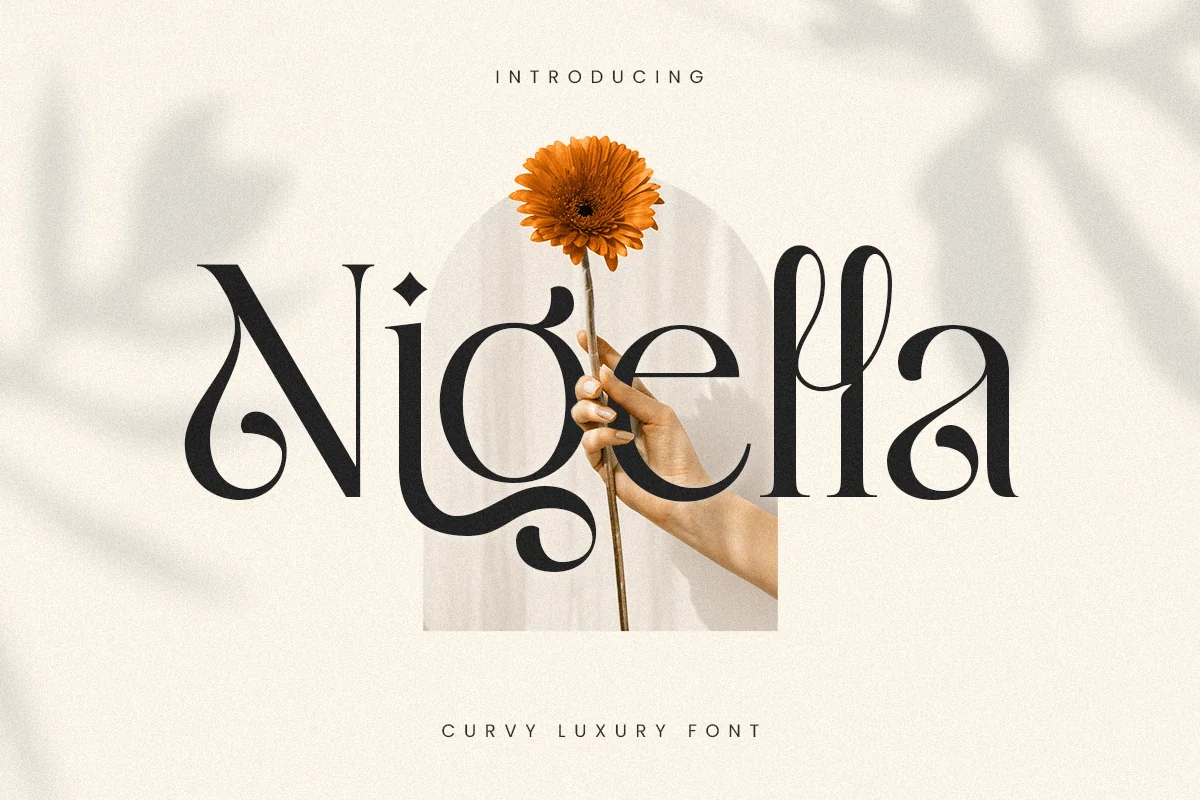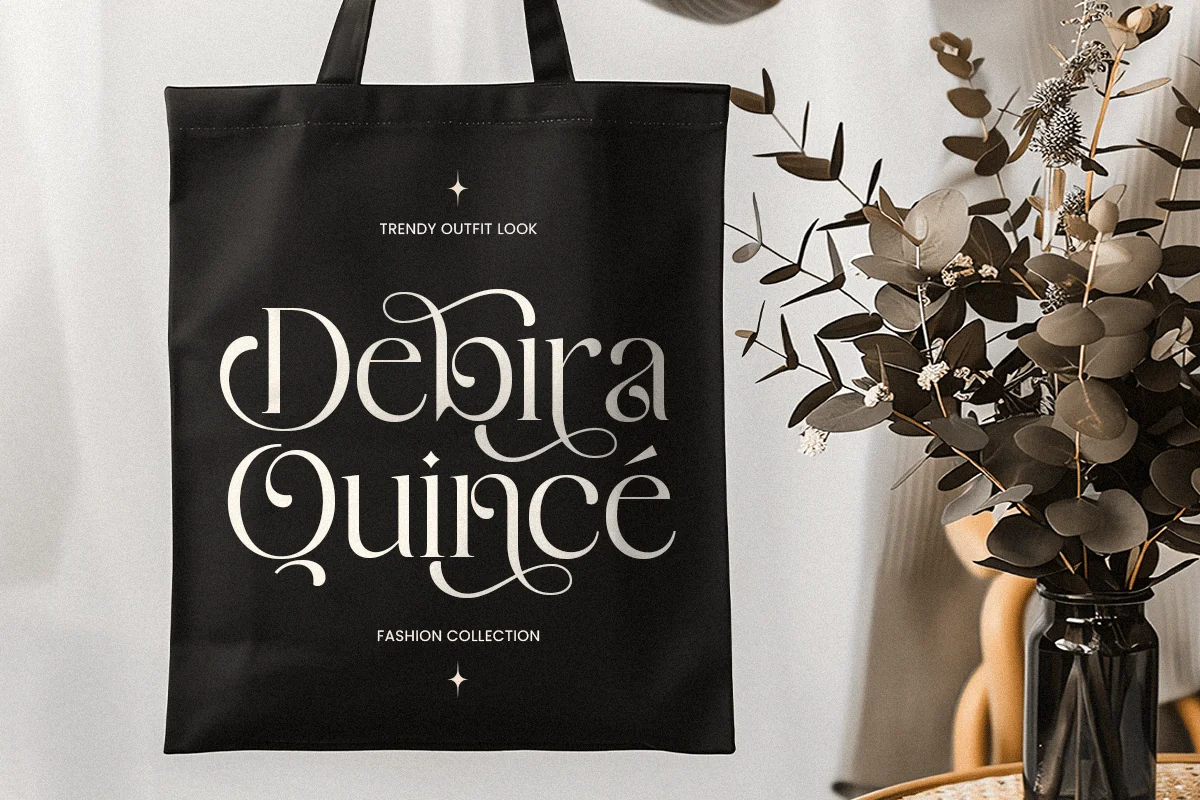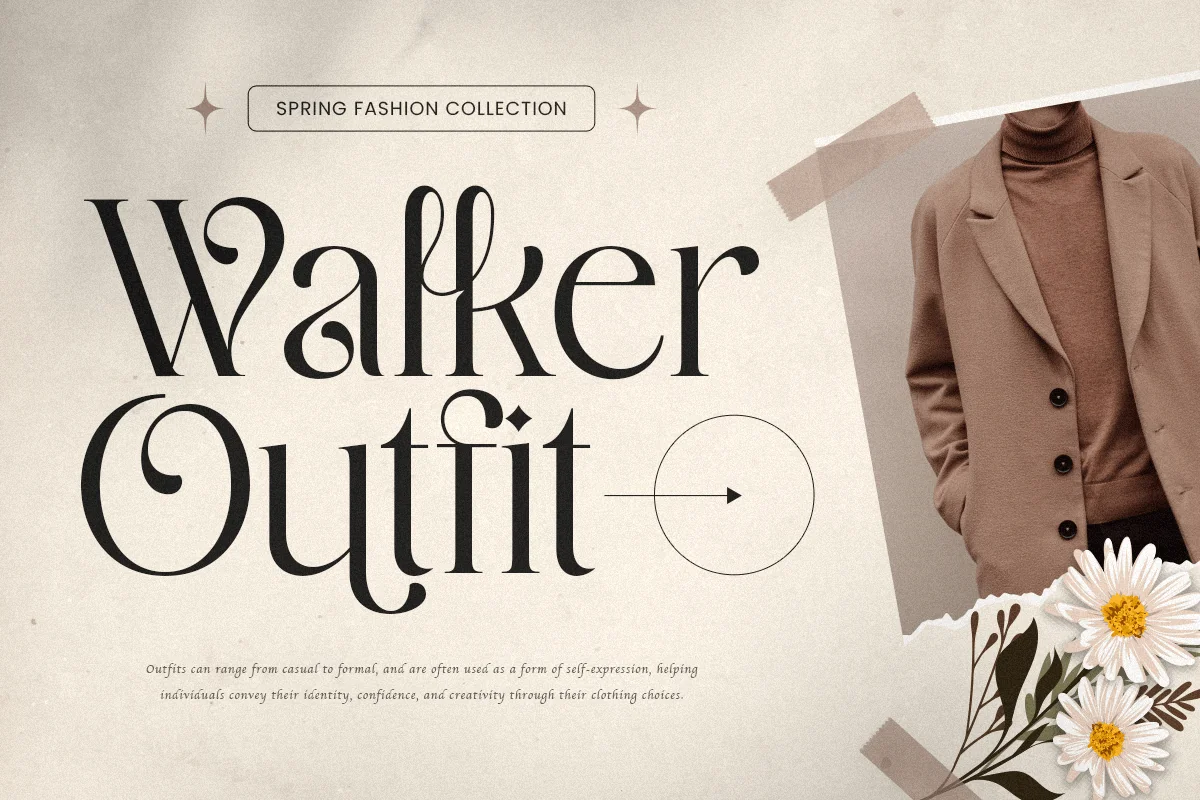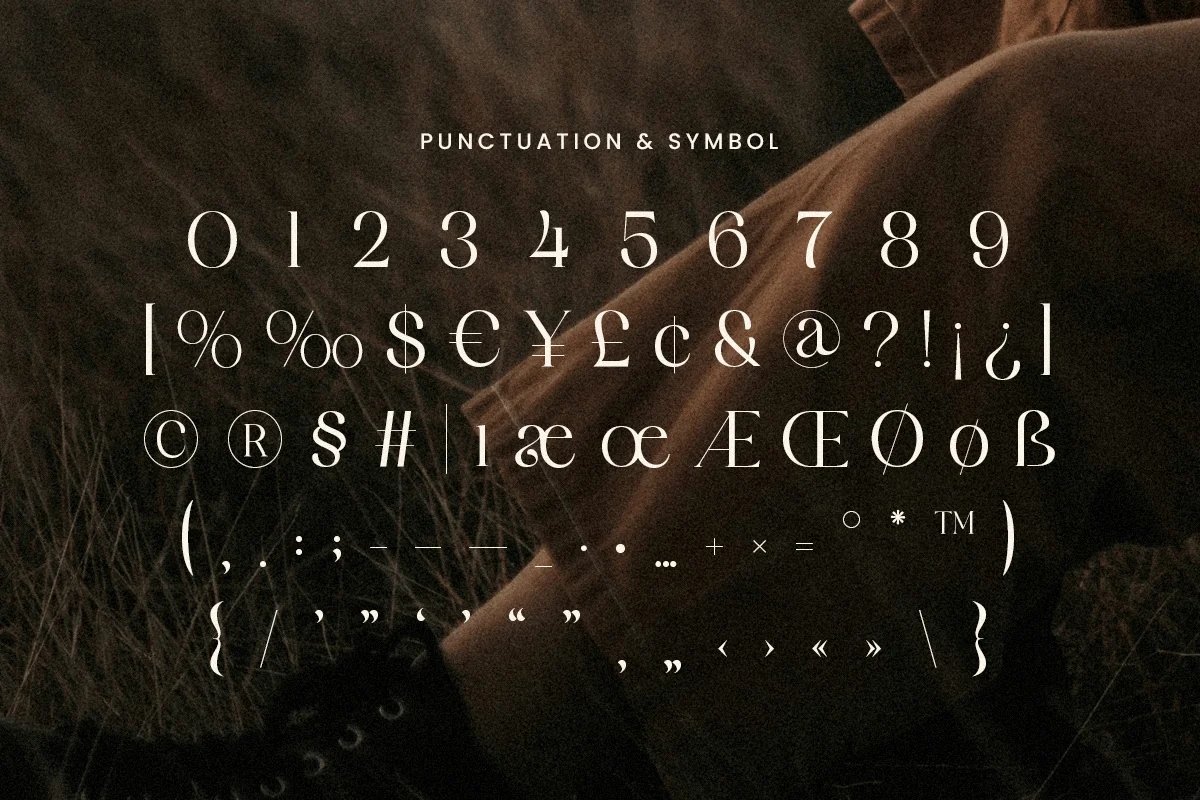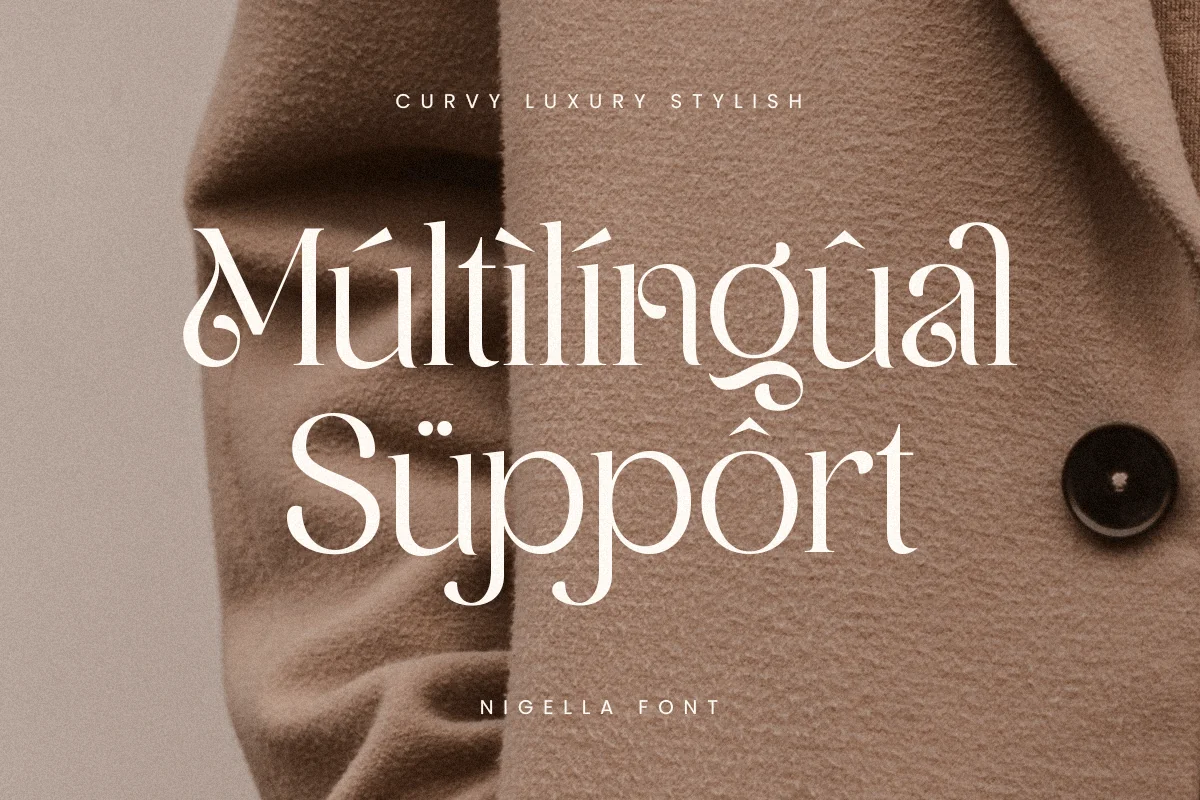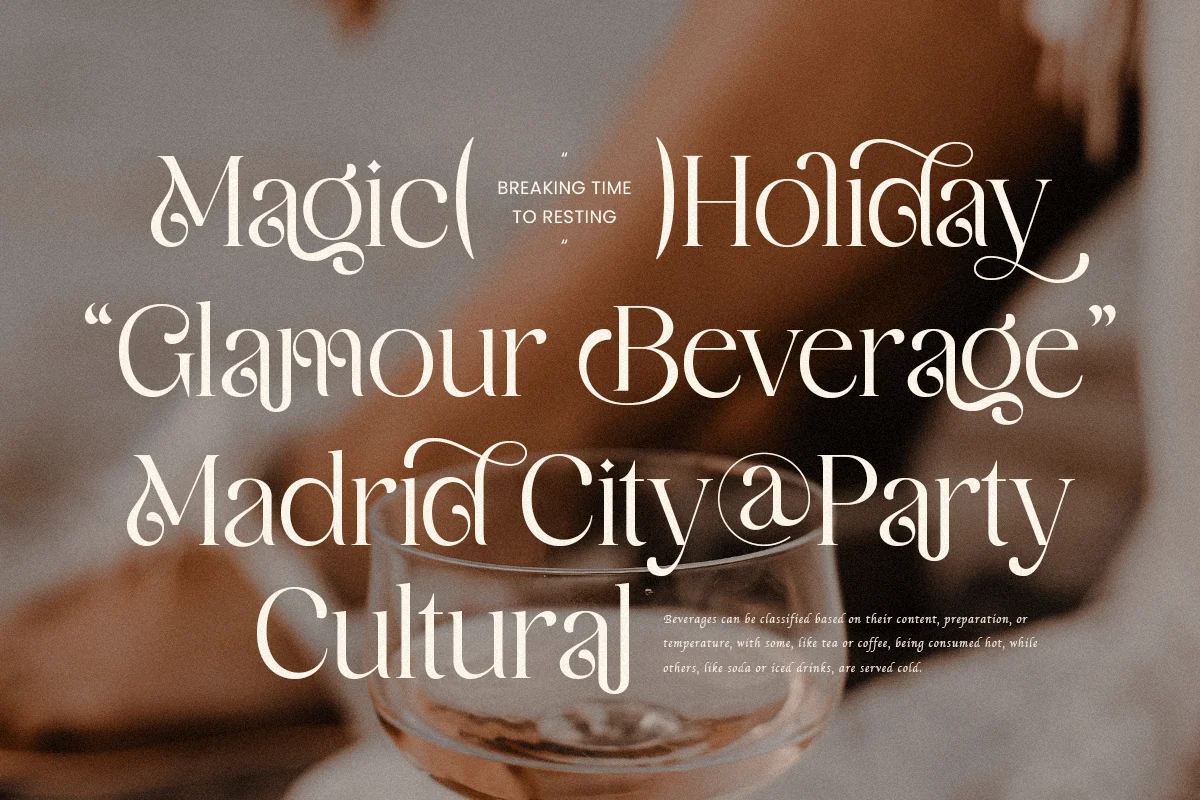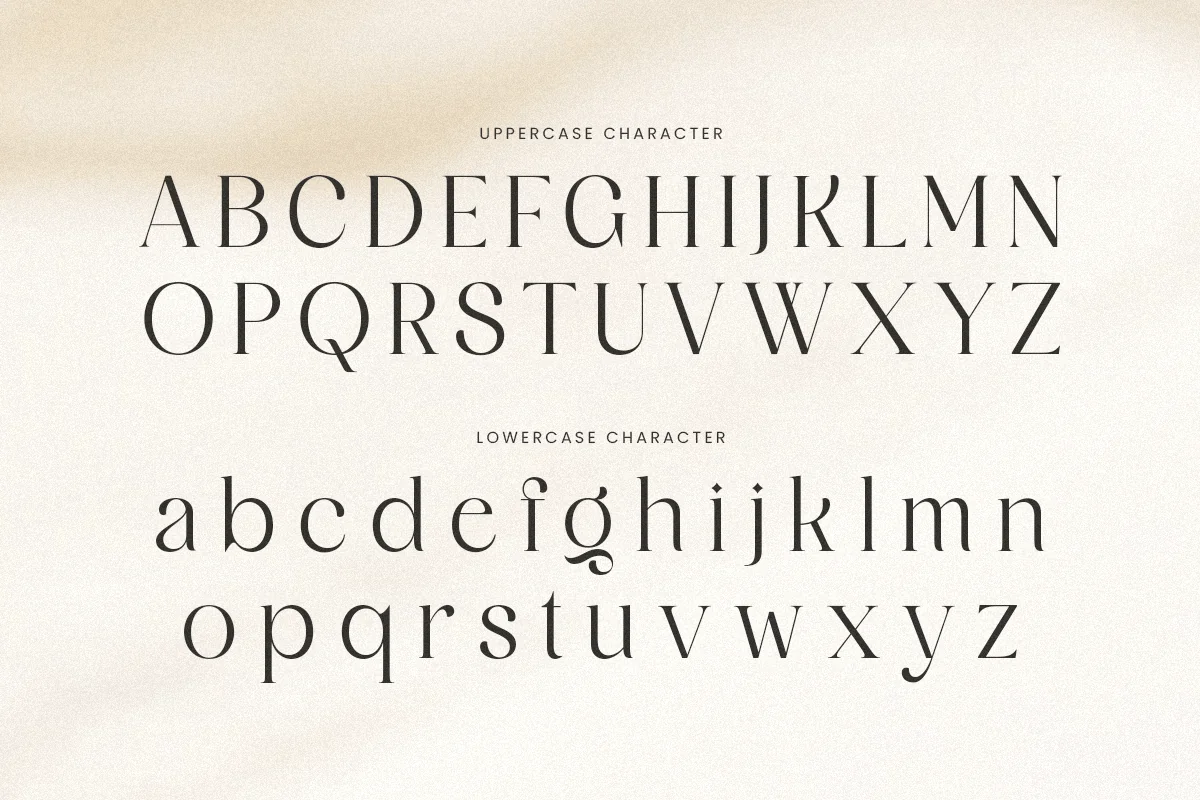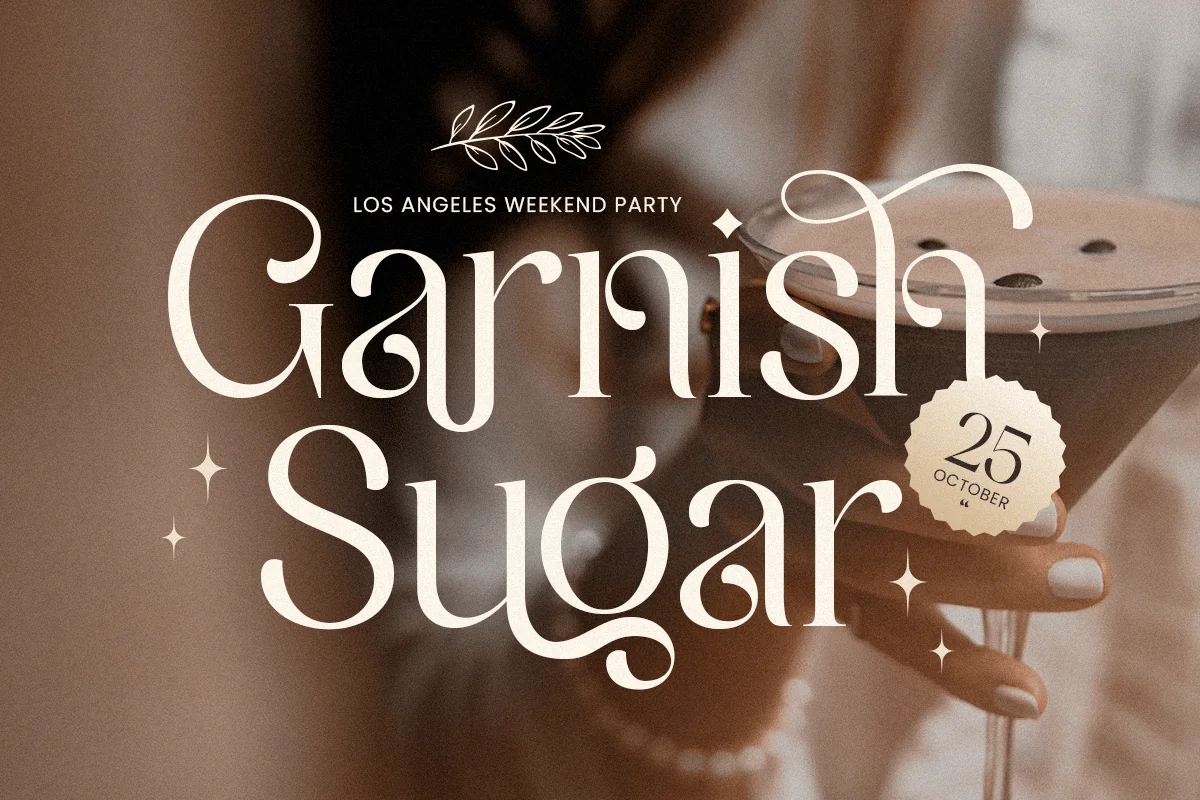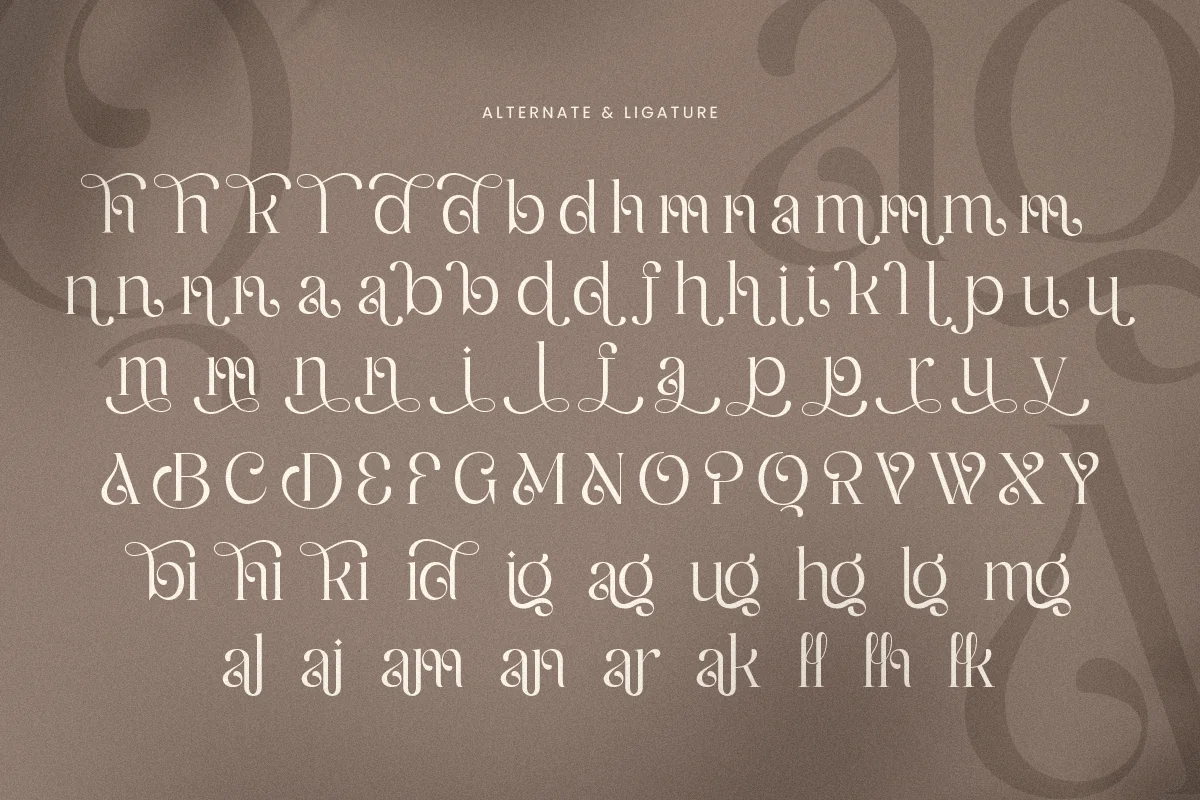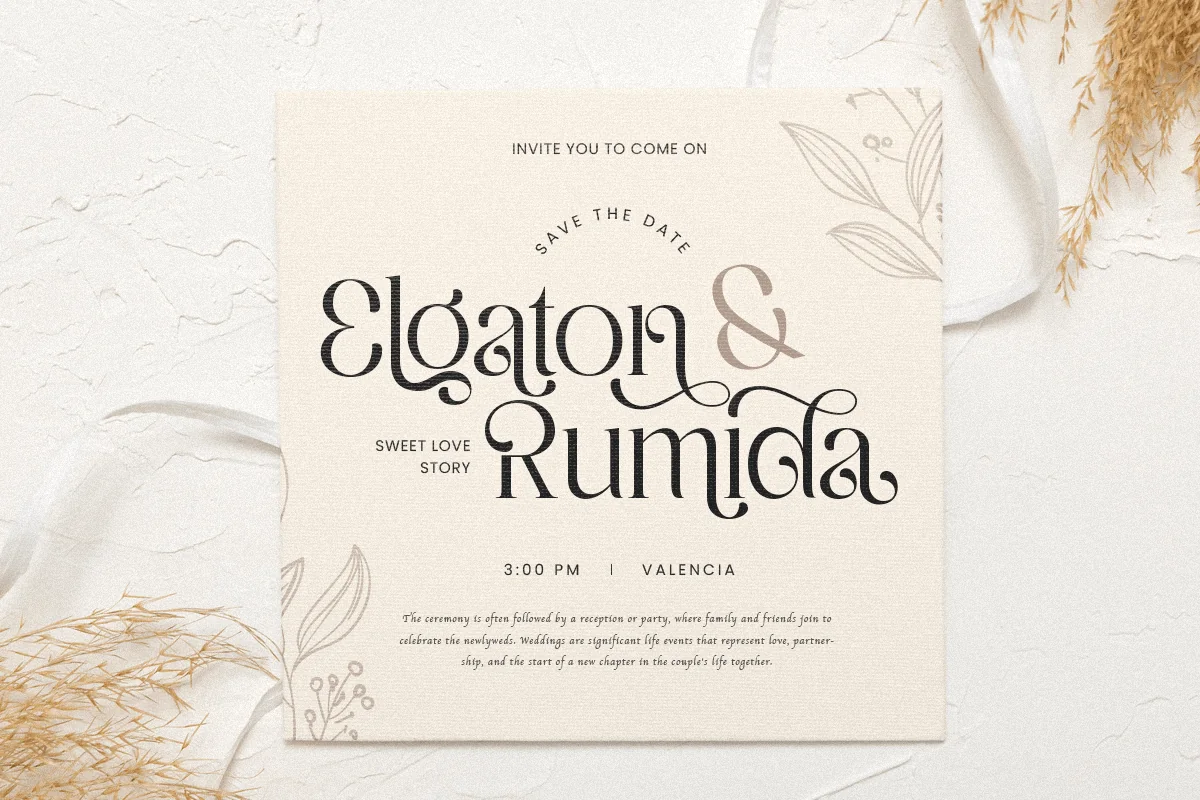
Nigella – Curvy Luxury Font
Nigella is a curvy luxury font that exudes elegance and sophistication with each letter. Its sweeping curves and graceful design make it an impeccable choice for projects that demand a touch of luxury and refinement. Perfect for upscale branding, high-end logos, and exquisite invitations, Nigella adds a luxurious flair that captivates and impresses.
Crafted for designers who appreciate detail, Nigella combines fluid curves with modern aesthetics, allowing your designs to convey both confidence and charm. Whether you’re working on branding, social media graphics, or custom stationery, this typeface will elevate your creations and give them an exclusive feel.
Choose Nigella when you want to infuse your projects with luxury and artistic flow. This font is not just a typeface; it’s a statement piece that resonates with class and style, ensuring your work stands out and leaves a lasting impression.
Nigella Curvy Luxury Font Features:
- Elegant Ligature & Alternative Characters Ready
- Unique Punctuation, Number, and Symbol
Multilingual Characters available for:
Afrikaans, Albanian, Asu, Basque, Bemba, Bena, Breton, Chiga, Cornish, Dutch, English, Estonian, Filipino, Finnish, Friulian, Galician, German, Gusii, Indonesian, Irish, Italian, Kabuverdianu, Kalenjin, Kinyarwanda, Luo, Luxembourgish, Luyia, Machame, Makhuwa-Meetto, Makonde, Malagasy, Manx, Morisyen, North Ndebele, Nyankole, Oromo, Portuguese, Quechua, Romansh, Rombo, Rundi, Rwa, Samburu, Sango, Sangu, Scottish Gaelic, Sena, Shambala, Shona, Soga, Somali, Spanish, Swahili, Swedish, Swiss.